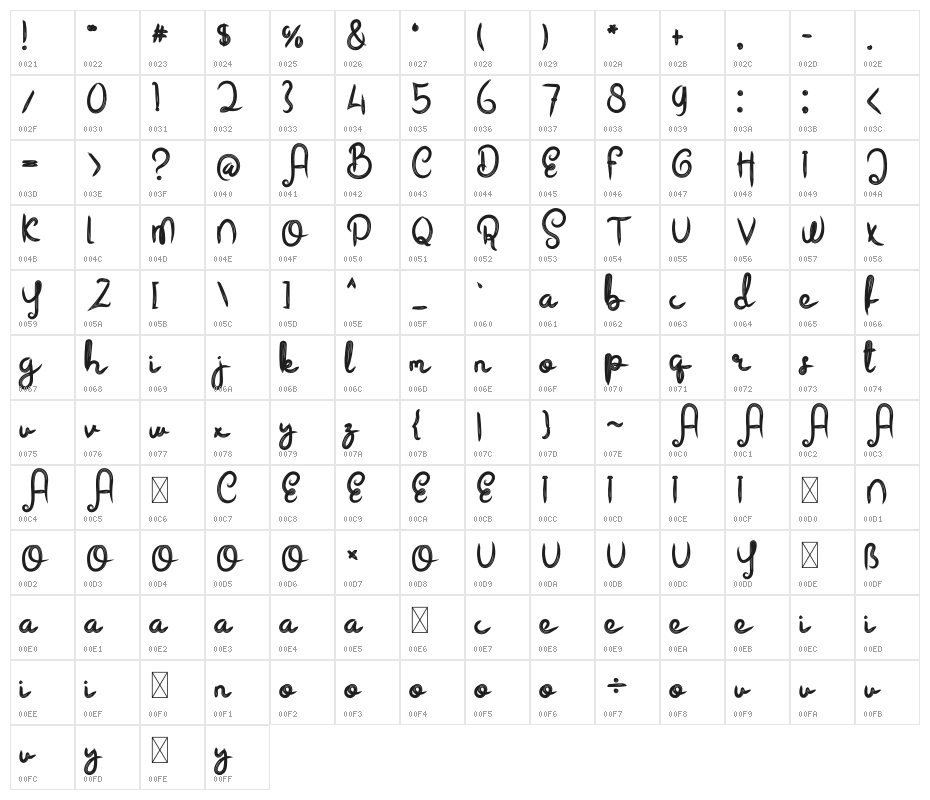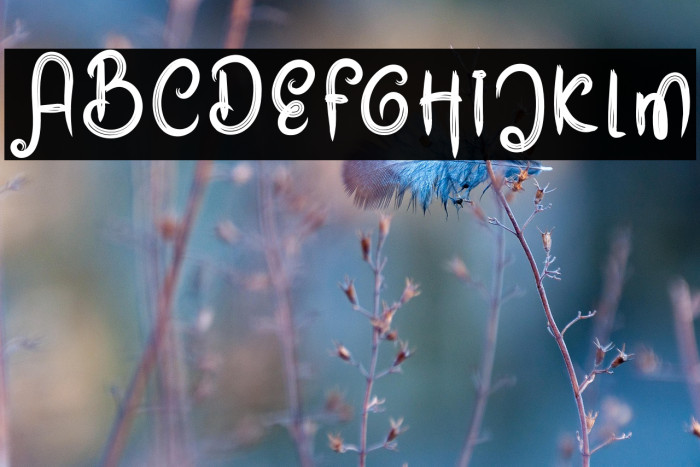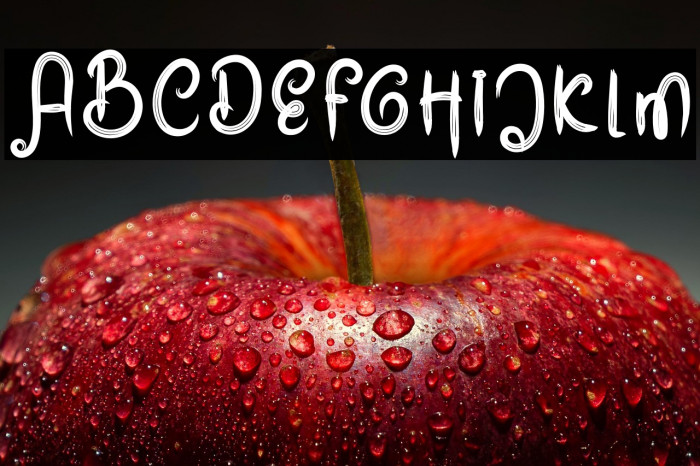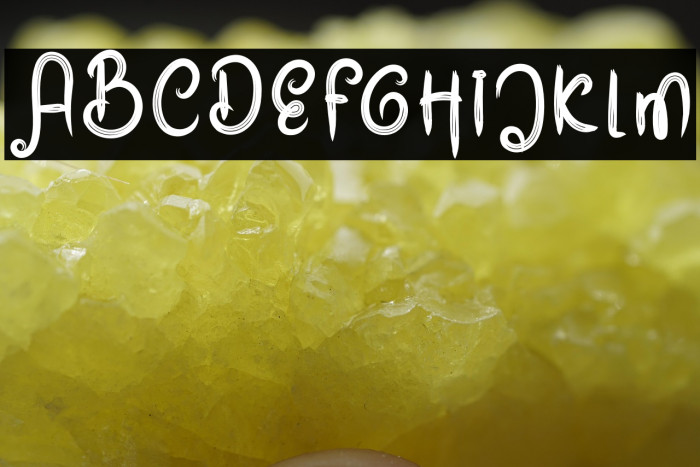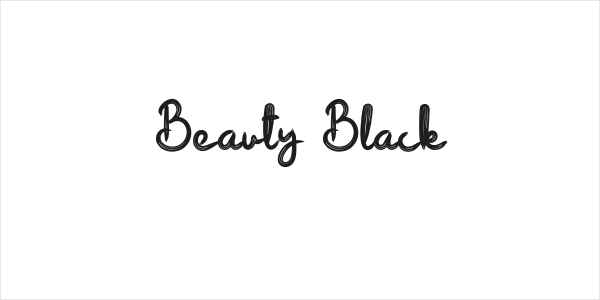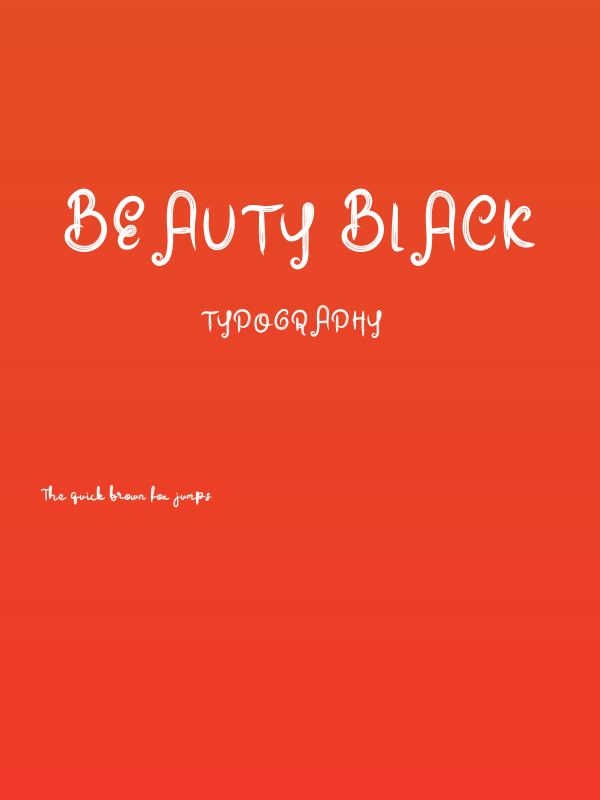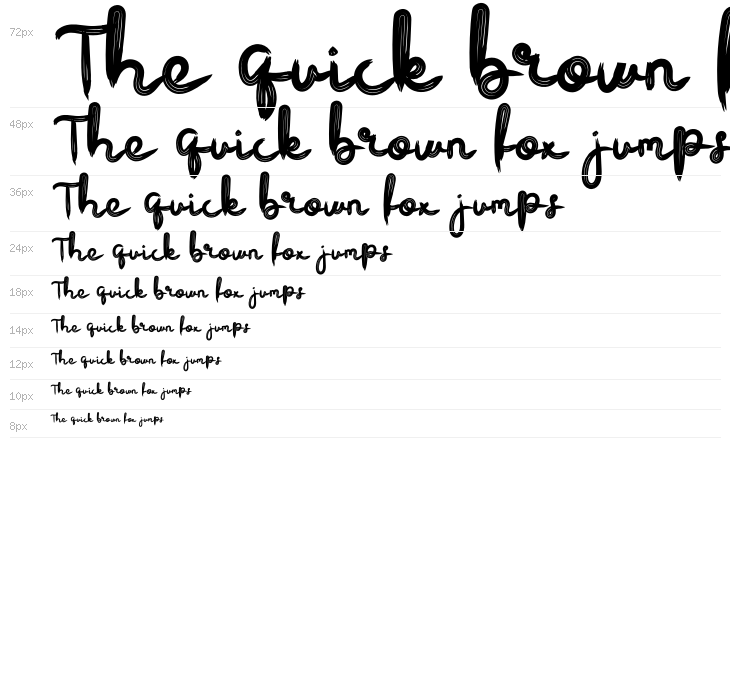
Beauty Black Font
Beauty Black Description
This font features a bold and expressive style with a handwritten appearance. The characters are characterized by thick, brush-like strokes that give a sense of movement and fluidity. The uppercase letters are tall and slightly narrow, while the lowercase letters maintain a consistent flow with rounded edges. The numbers and special characters follow the same dynamic style, adding a playful yet sophisticated touch. This font's unique flair makes it stand out, with its artistic and creative design elements.